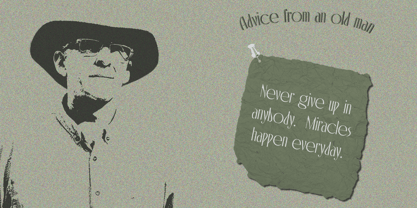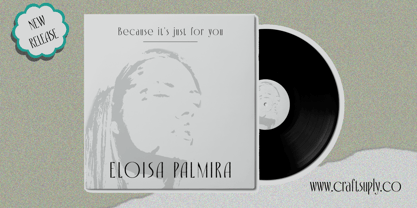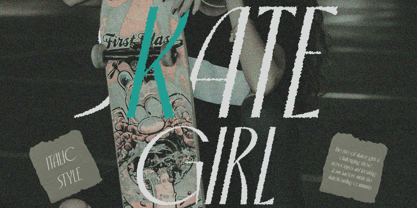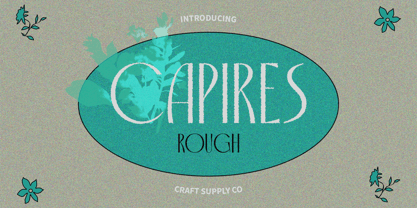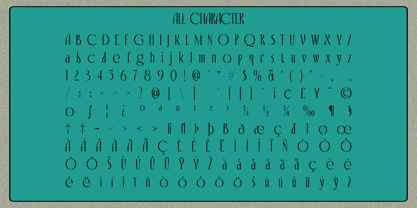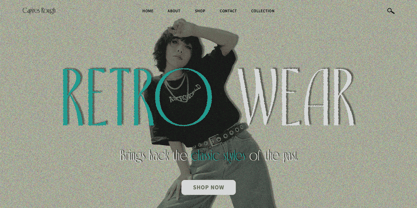
Capires Rough
Die Schriftfamilie Capires Rough wurde von Trio Nazzar Saputra, Wahyu Hadi Yuana entworfen und von Craft Supply Co veröffentlicht. Capires Rough enthält 2 Stile und Familienpaketoptionen. Mehr über diese Familie
Capires Rough: Art Nouveau Inspired Elegance
High Contrast Sans Serif
Capires Rough boasts a high contrast sans serif design that exudes elegance and sophistication. Its distinct letterforms command attention and evoke a sense of timeless beauty.
Art Nouveau Inspiration
Inspired by the graceful curves and intricate details of the Art Nouveau movement, This font embodies the essence of this iconic artistic style. Each glyph reflects the flowing lines and ornate motifs characteristic of Art Nouveau design.
Rough Effect for Added Charm
With its rough effect, This font gains an extra layer of charm and personality. This rough texture adds depth and character to the font, enhancing its visual appeal and making it perfect for eye-catching display purposes.
Ideal for Display
Thanks to its high contrast design and Art Nouveau-inspired aesthetic, This font is perfectly suited for display applications. Whether used in branding, headlines, posters, or invitations, this font effortlessly adds a touch of elegance and sophistication to any design project.
Timeless Elegance with Artistic Flair
This font combines the elegance of high contrast sans serif typography with the artistic flair of the Art Nouveau movement. With its rough texture adding character and charm, this font is a versatile choice for designers looking to infuse their projects with timeless beauty and sophistication.